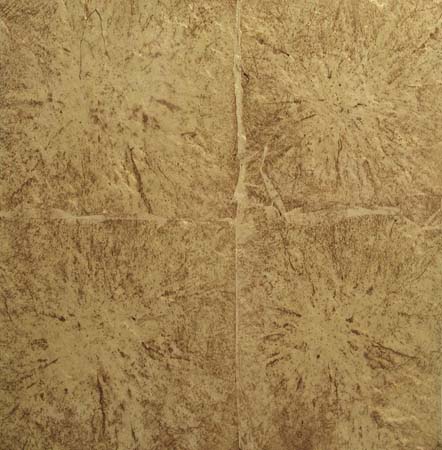
Is there an alternative for goldleaf?
Maybe someone knows about an alternative for goldleaf.
Goldleaf, as we all know, is very exspensive at this moment.
So exspensive that it is allmost not affordable.
There are a few suppliers of metalleaf in the world, but is there a kind of leave for sale that has a gold color and can be watergilded behind glass?
Even burnished to give it the high gloss we all know?
Something that will not tarnish due to the watersize?
Or is this just Alice in Wonderland thinking?
given the time put into such work the cost of the gold is minimal and if the work is for sale or a comission then just cost it in.
most who do work here sell gold for what it is , the best you can get, so I wouldn't go looking for an alternative as you won't find one
I backed some glue chip with some gold Krylon once...
there was never any words spoke over it.
How 'bout slappin' some Signgold!!
Haha I get the point.
But when I think about it there must be some paint stuff which gives the high gloss of burnished gold behind glass.
This German beer brand has a lot of plexiglas signage which has glossy gold lines and lettering. I took a sample chip of the 'gilded' plexiglass with me and it was deffinatly a paint backed up with yellow paint.
Strange....
Nothing will ever replace gold, of course, but...
Water gilded silver lasts a while if you protect it. I don't really know how long. Some of my reverse silver is still okay after almost two years...
We have some colored silver over here. I have not tried this particular kind yet so I don't know how it would burnish, etc. Regardless, silver is always hard to work with, mind. Seems like one possibility tho...
As mentioned before, only real gold looks like real gold.
However, I have tried some things.
One is the Amber 59000 series Nazdar ink. When screen printed onto glass and chemically silvered looks pretty nice and reflective. A lot of current promo beer mirrors are done that way. Check out the wheat sprigs on a COORS BEER or BUD mirror and you will see how close to gold they look.
Another thing I tried which is as close to gold as you can get is to use the brass foiling rolls that printing companies use on their presses for gold foiling embossed business cards. The metal is vaporized very thinly onto a thin clear acetate roll. Rubbing it onto any sticky surface will transfer the thin metal layer. Since the layer is thinner than real gold and on shiny acetate, you don't need to burnish it because it is immediately shiny.
Lettering was laid out on the outside of the glass, then outlined on the reverse side. Once the outlines were dry, and trimmed, yellow-tinted varnish was applied within the letters. Once that varnish was thoroughly dry, silver leaf was water sized behind--I believe he also recommends using aluminum leaf.
I believe another very suitable alternative would be tinted gold size, dusted with aluminum bronze. A skillfully rendered reverse aluminum job looks like burnished gold from across the street, Kent Smith is a master at this.